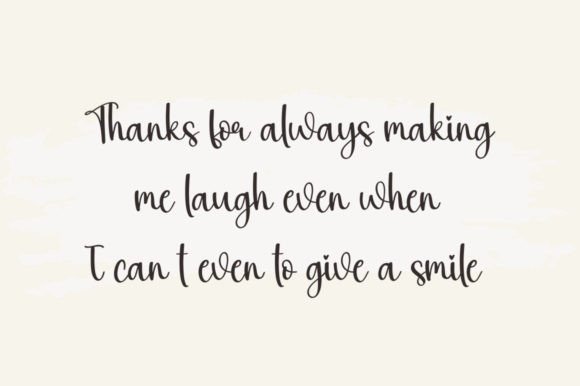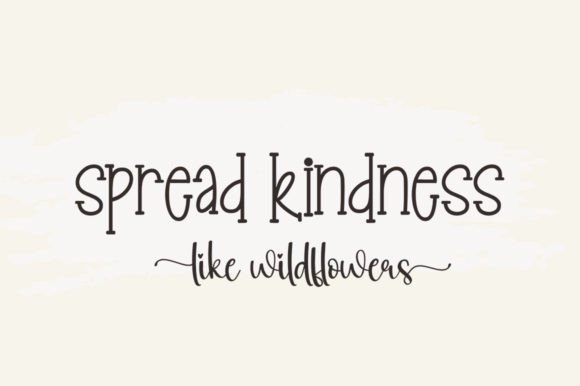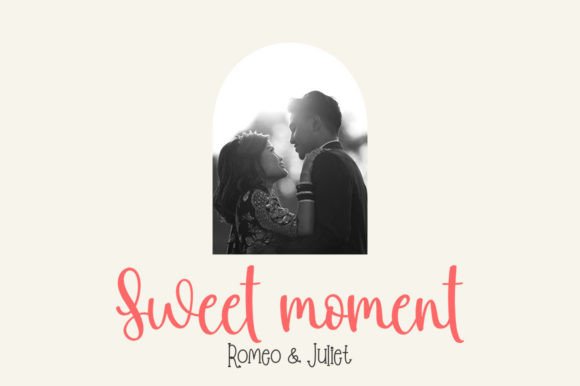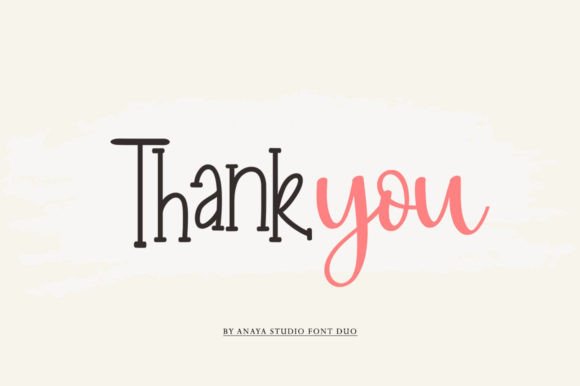
Introduction to Lonely Always Font
Lonely Always consists of two fonts designed to complement each other perfectly.
Together or separately, these fonts are ideal for adding a chic and cheerful touch to your work Lonely Always is PUA code which means you can easily access all glyphs and sweeps.
Key Features of Lonely Always Font
Why Choose Lonely Always Font?
Lonely Always Font offers exceptional quality and versatility, making it a valuable addition to your design toolkit. Whether you’re creating for personal projects or commercial use, Lonely Always Font delivers professional results.